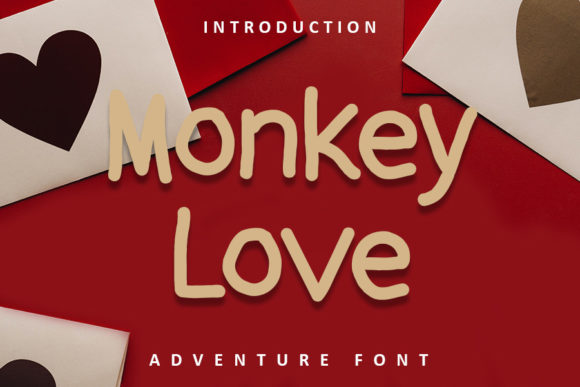
Welcome to the world of Monkey Love Font, the enchanting script font that's poised to capture your heart and transform your creative endeavors. Step into a realm where words dance with elegance, and your designs bloom with a unique charm.
With its graceful curves and playful personality, Monkey Love Font is the perfect companion for school notes, adding a touch of whimsy and creativity to your everyday learning. Let your thoughts take flight as you glide through pages adorned with this captivating font, making note-taking a delightful experience.
Monkey Love Font is not just a font; it's an expression of your individuality. Its versatility knows no bounds, allowing you to effortlessly craft stunning invitations, greeting cards, and social media posts that radiate warmth and charm. Whether you're a seasoned designer or just starting your creative journey, Monkey Love Font is your trusty companion, adding a touch of magic to every project.
Imagine your words leaping off the page, imbued with personality and flair. Monkey Love Font breathes life into your designs, turning ordinary text into a visual symphony. Personalize your planner or journal, making it a reflection of your unique style. Let your creativity soar as you explore the endless possibilities of this remarkable font.
With Monkey Love Font, you'll discover a world of boundless creativity, where your imagination reigns supreme. Embrace the boundless joy of self-expression and let your designs blossom with Monkey Love Font, the font that ignites your creative spirit and leaves an indelible mark on your creative endeavors.